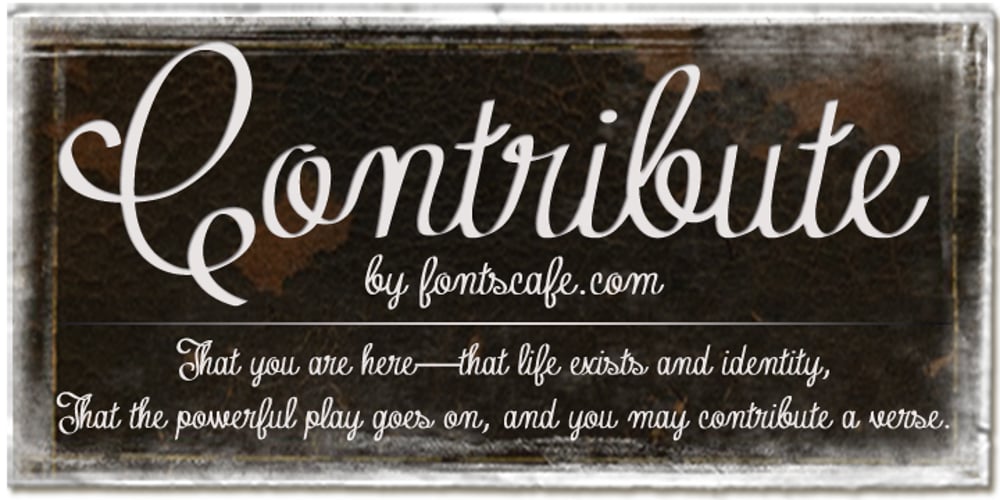
Contribute
Contribute font
Contribute Font Family was designed by published by Fontscafe. Contribute contains 1 styles and family package options. The Contribute font is one that takes you back to the days of the fountain pen. To those who are old enough to remember, fountain pens were tiresome to fill and use – but also a pleasure to own, something to cherish that became so much a part of your daily life, a symbol of etiquette and sometimes even a style statement! Our Contribute fonts will definitely remind you of that, and everything else to do with a touch of vintage class. This 30s-like font is sure to become one of your favorite cursive fonts, be it for use on a poster or a web page. This font is ideal for those situations where you need your viewer to connect on a more personal level than formal. Think ‘writing a letter rather than typing it out’, and you will know what we mean!